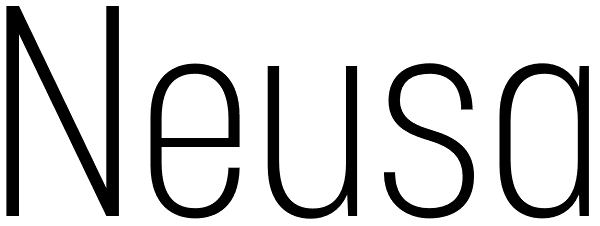
Neusa
Neusa is a condensed geometric sans serif typeface designed by Mariya V. Pigoulevskaya in 2012. This font family comes in eight weights. It was designed as a text based font with strong display characteristics. Neusa was inspired by the early space...